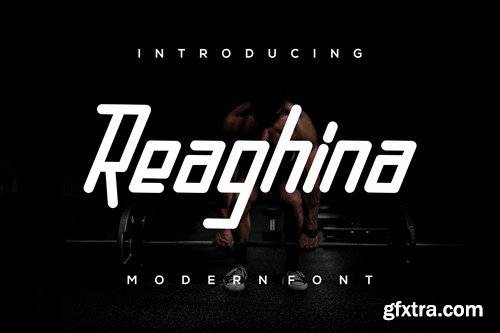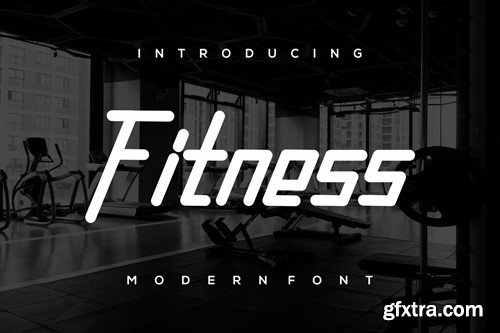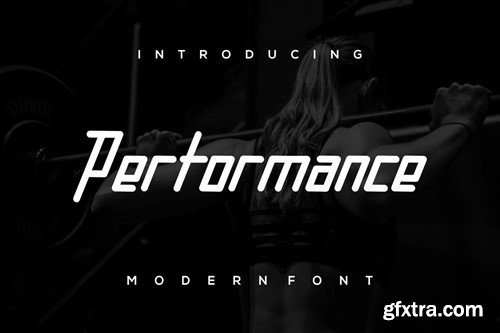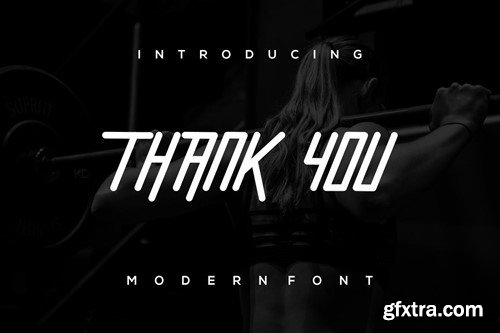
Reaghina Font
Introducing our new product Reaghina Font - Modern Fonts Reaghina Font - Modern Font is a bold and authentic display font. This font is suitable for any branding projects such as logos, esport and more. extraordinary in many contexts. available *otf *ttf